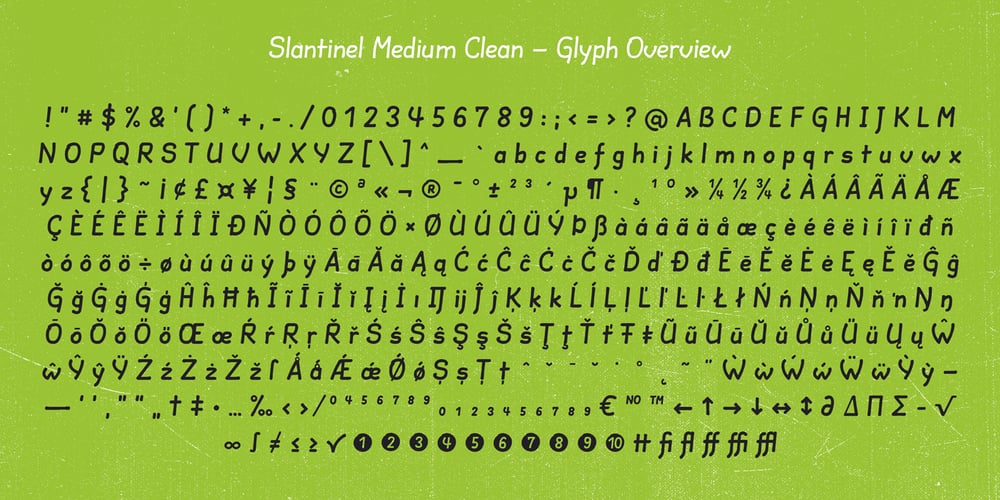
Slantinel Font Family was designed by Christian Schaarschmidt and published by Illunatic. Slantinel contains 9 styles and family package options. Slantinel is a versatile sans-serif type family with lots of personality! It consists of 9 fonts coming with 3 weights in 3 versions each and supports many international languages. Slantinel works best in small to medium sizes and is useful in a wide variety of settings such as childrens books, packaging designs, greeting cards and much more due to its handwritten feel and its many distinct details.